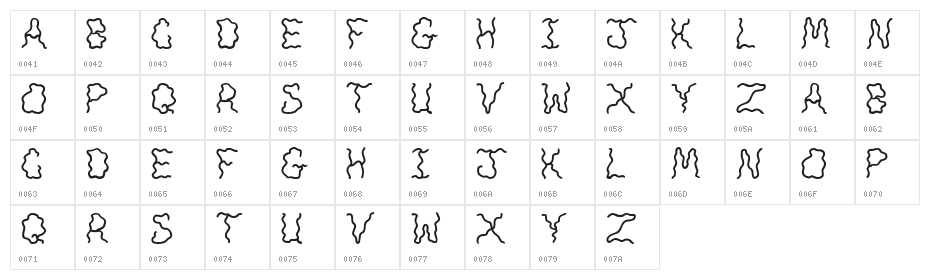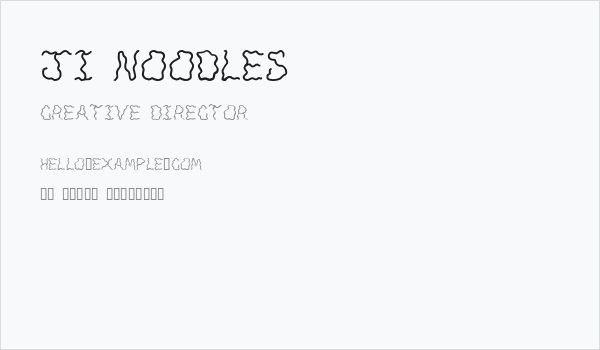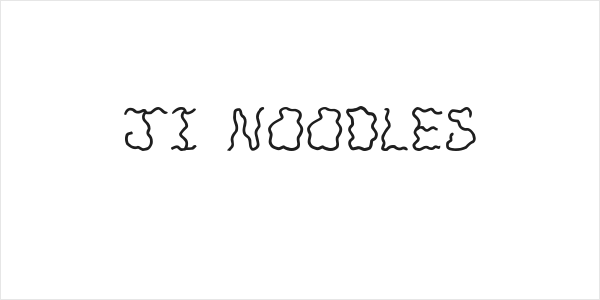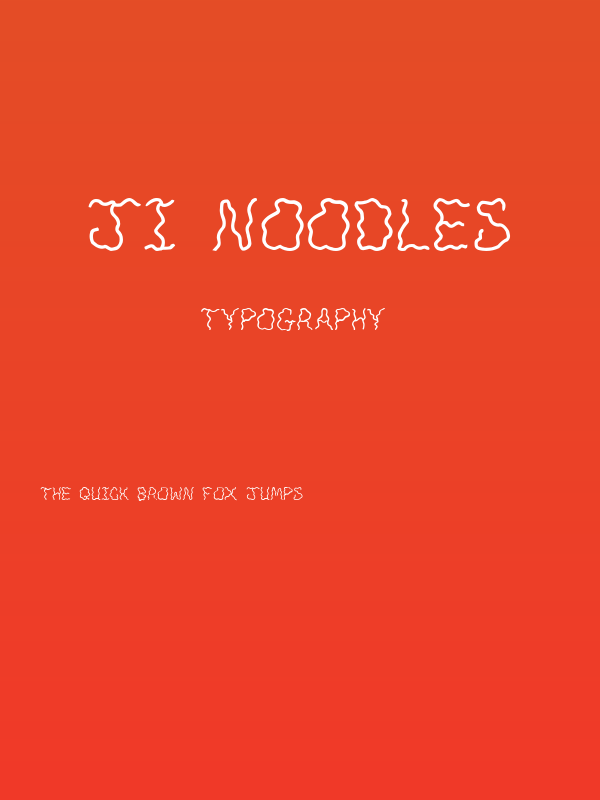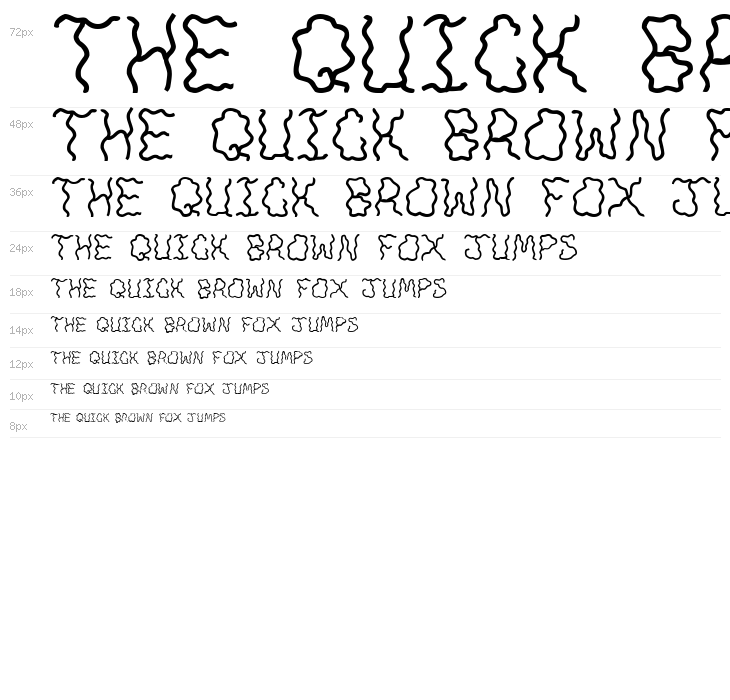
JI Noodles Font
JI Noodles Description
This font features a playful and wavy design, reminiscent of noodles or flowing liquid. Each character is crafted with a unique, irregular outline that gives it a dynamic and whimsical appearance. The uppercase and lowercase letters maintain a consistent style, with the curves and twists adding a sense of movement and energy. The numbers and special characters follow the same design principles, ensuring a cohesive look across all elements. This font is ideal for projects that require a fun and informal touch, such as children's books, playful branding, or creative posters.
| Overall Style | Whimsical, Playful |
| Proposed Projects | Children's books, playful branding, creative posters, informal invitations. |